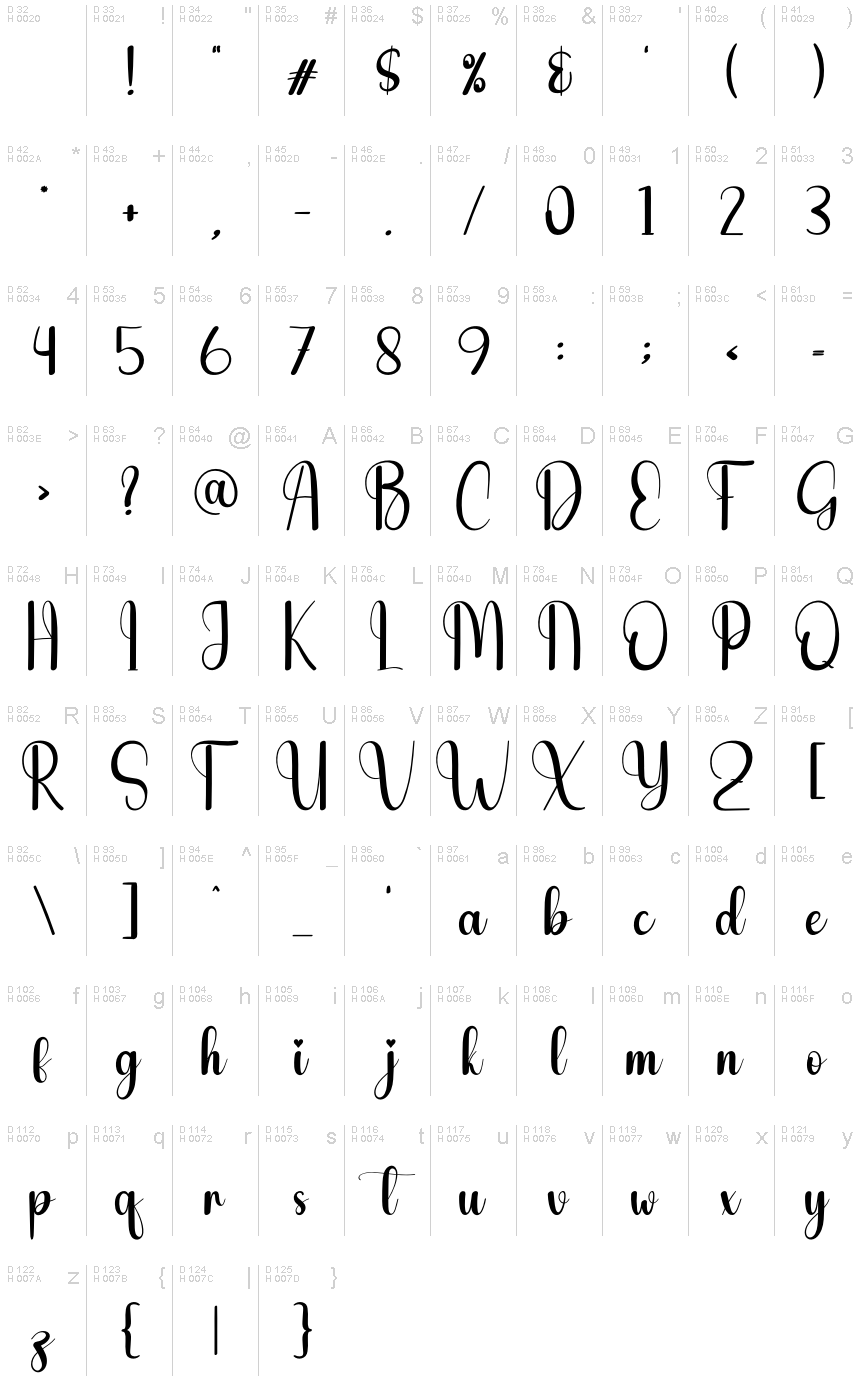
The Chubby
The Chubby, designed by Scratchones, exudes a playful warmth with its handwritten style that captivates at first glance. Dancing between casual elegance and cheerful boldness, this font carries a friendly persona that's both inviting and unmistakable in its charm. With generous curves and a cozy thickness to its strokes, The Chubby embodies a sense of approachability and whimsy that makes it perfect for projects looking to convey intimacy and friendliness.
This font finds itself at home in contexts where personality is key: from branding materials for boutique businesses to whimsical invitations or charming product packaging. Its readable yet distinctive nature ensures it stands out in creative designs while maintaining legibility. The Chubby is an excellent choice for those seeking to infuse their work with a touch of handcrafted sincerity and joyful flair.